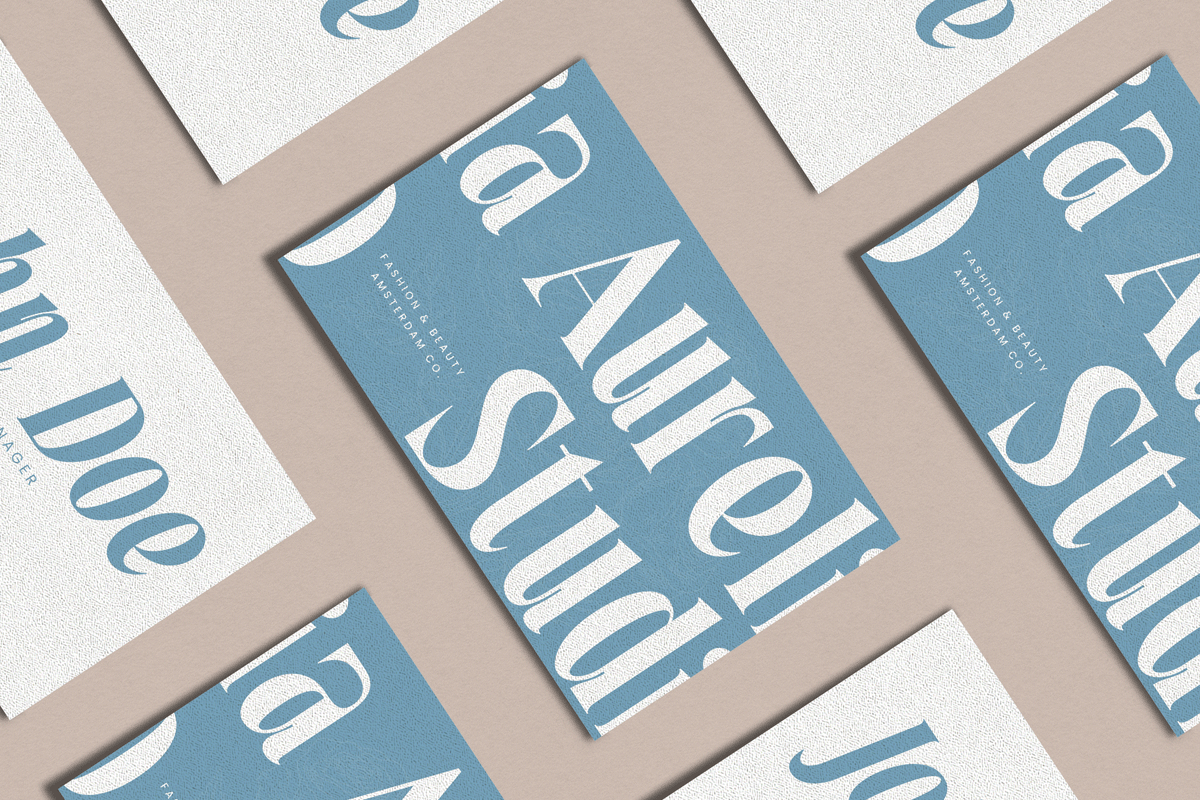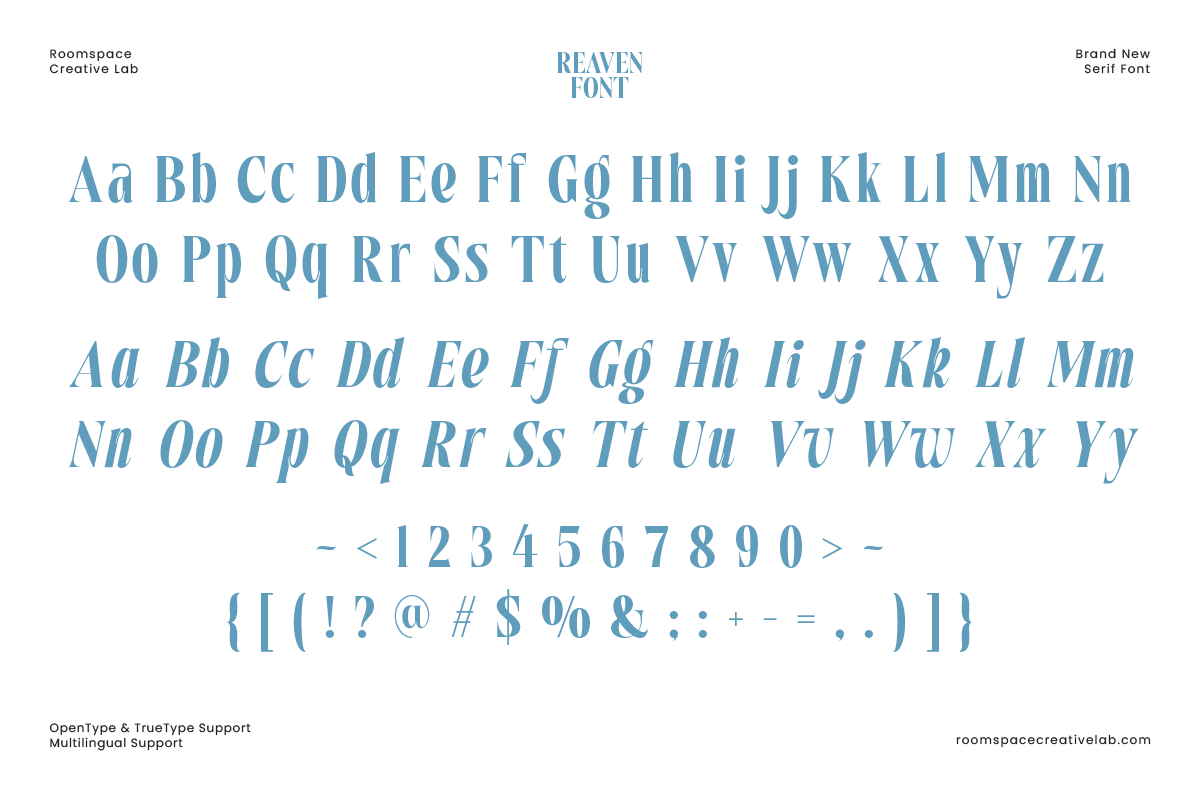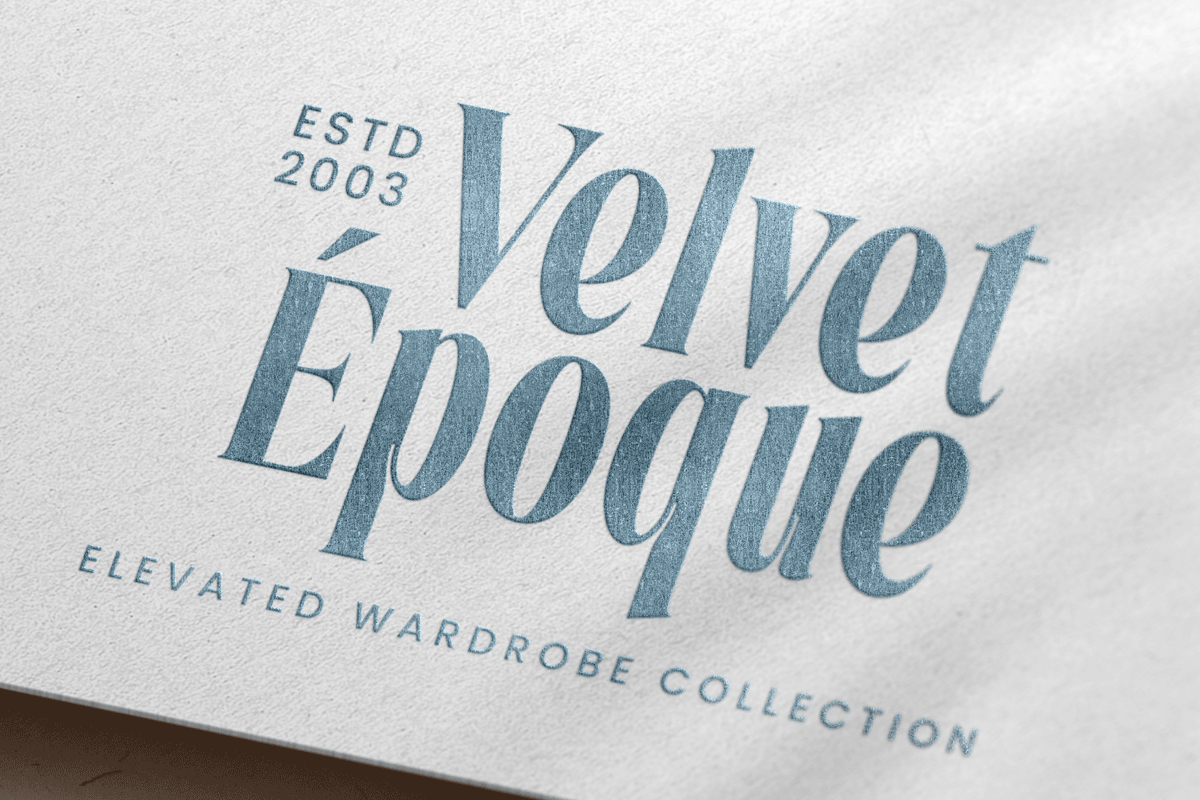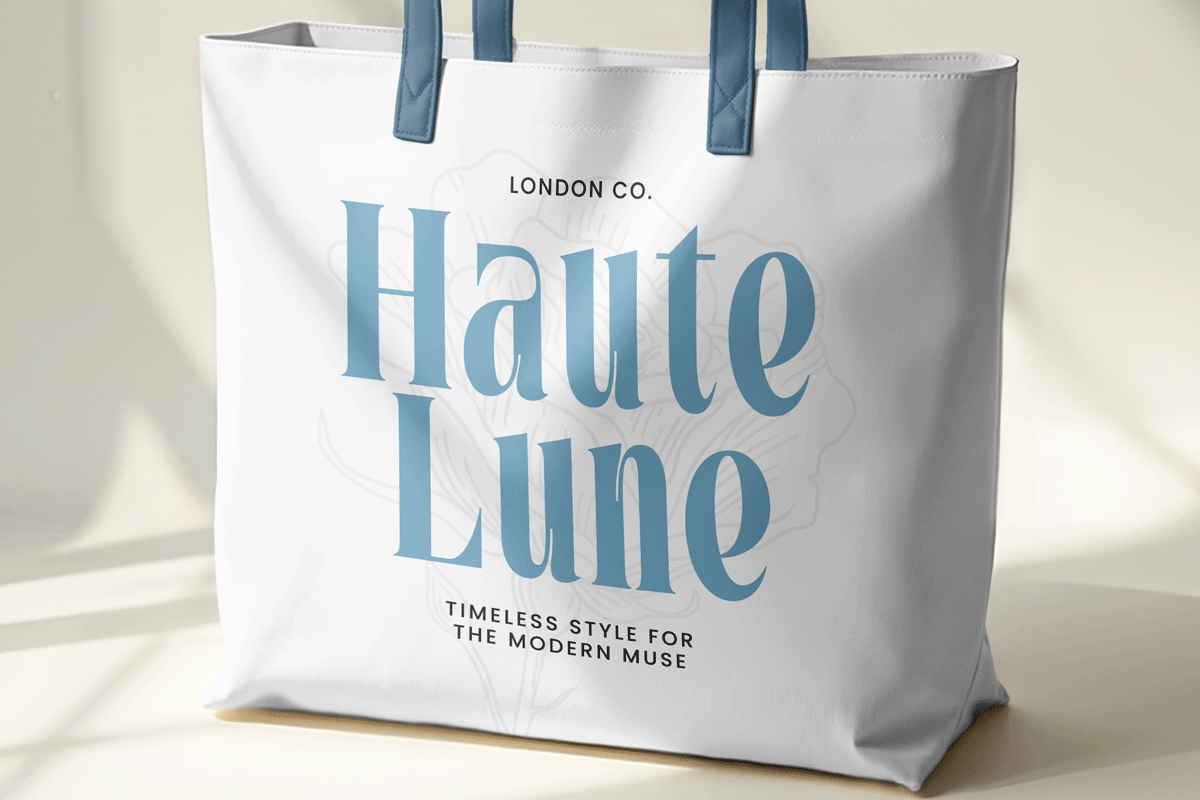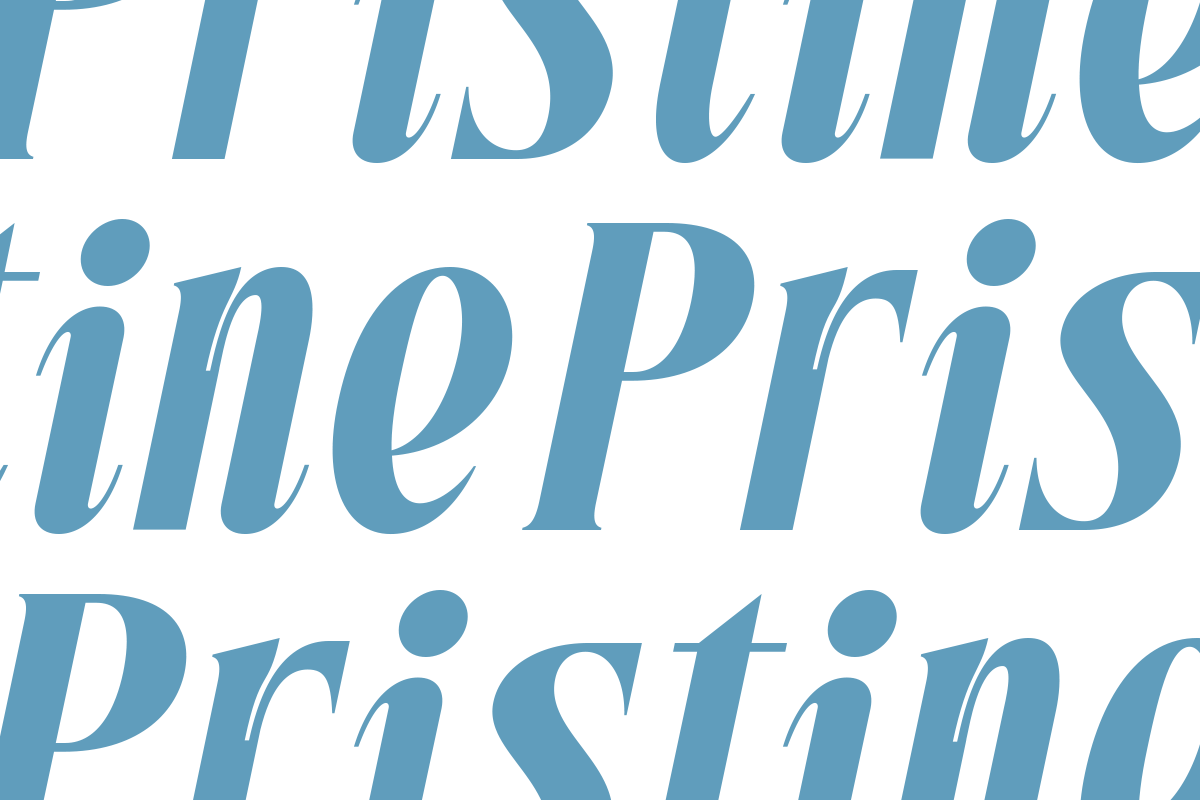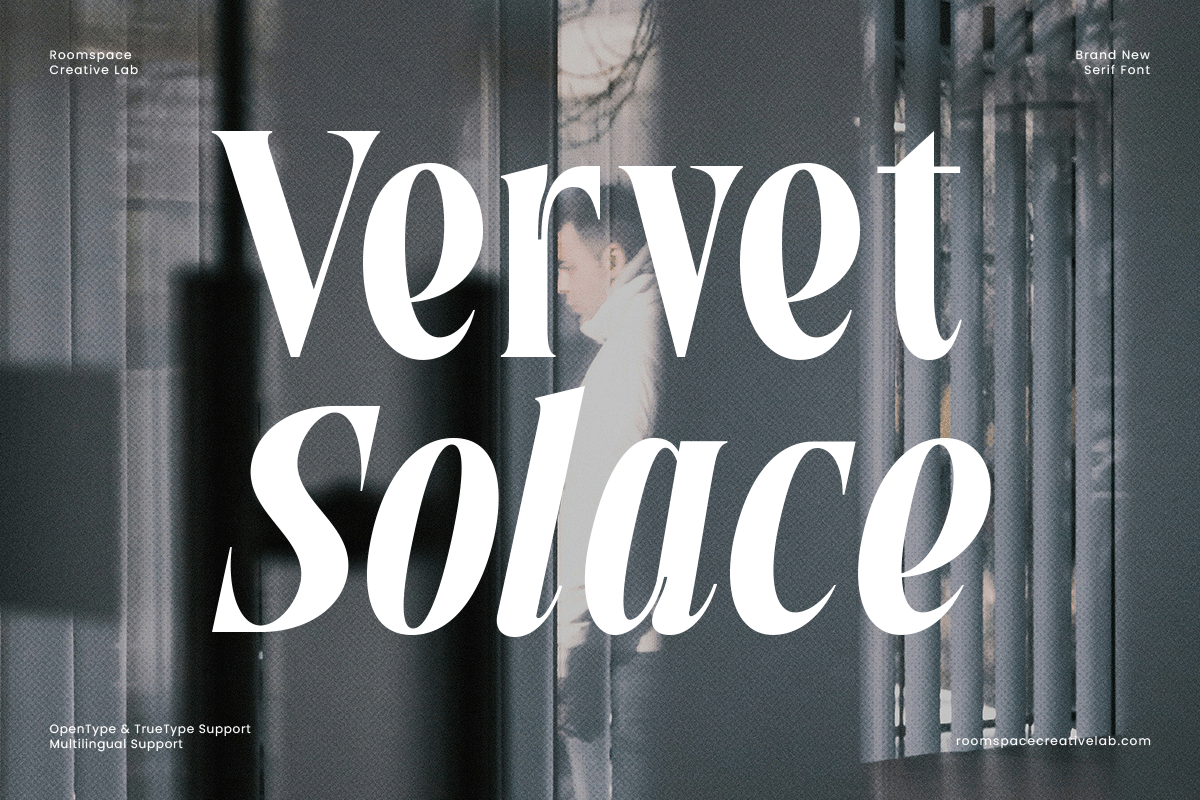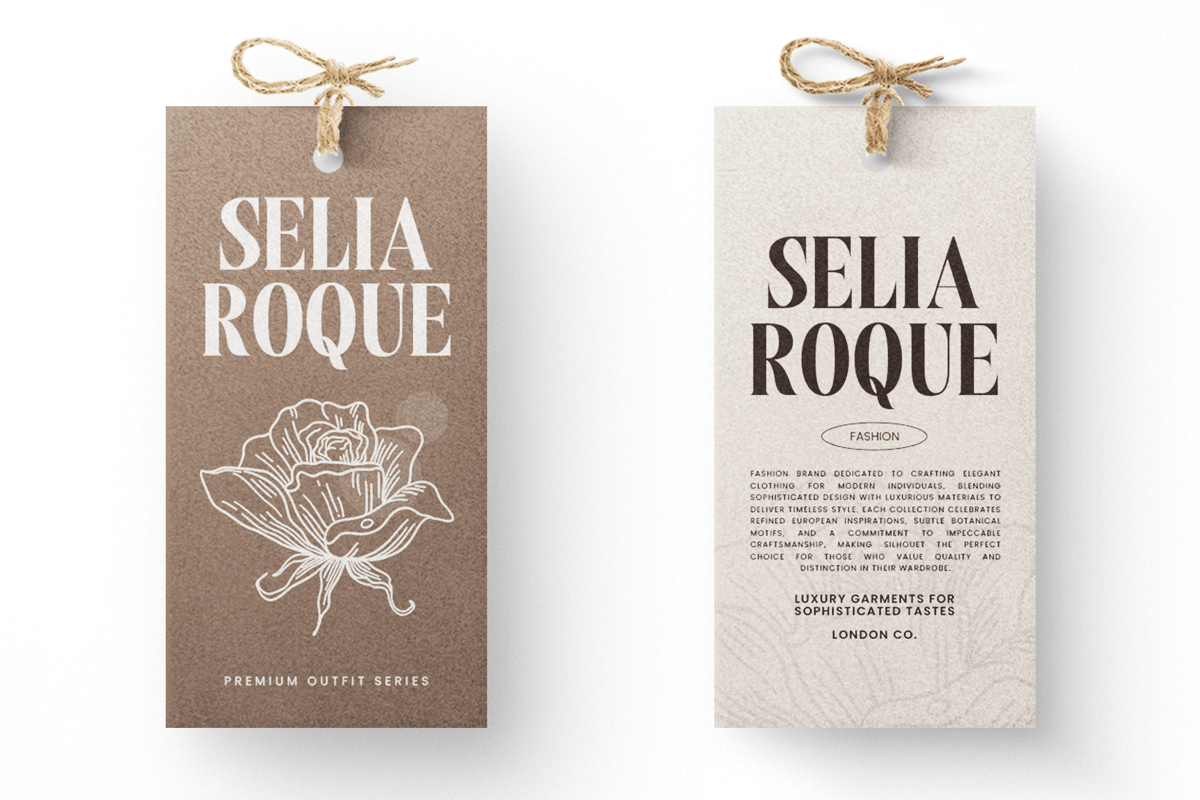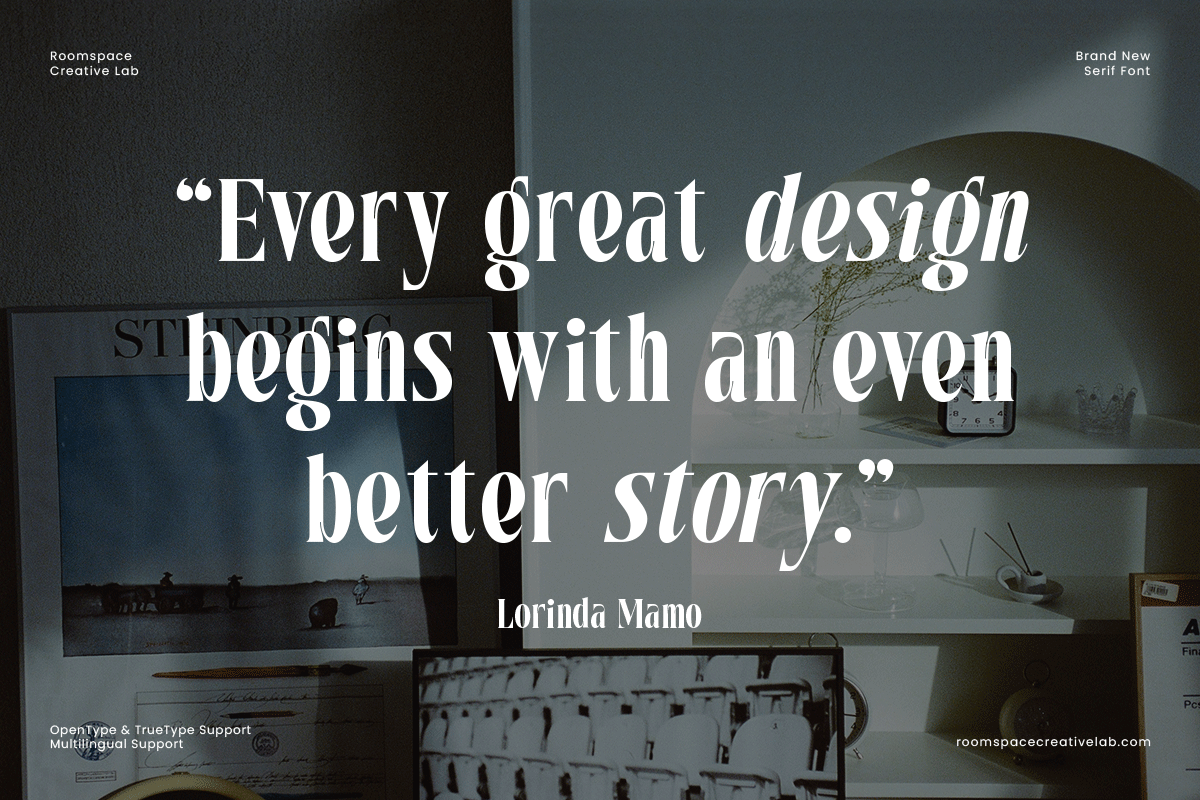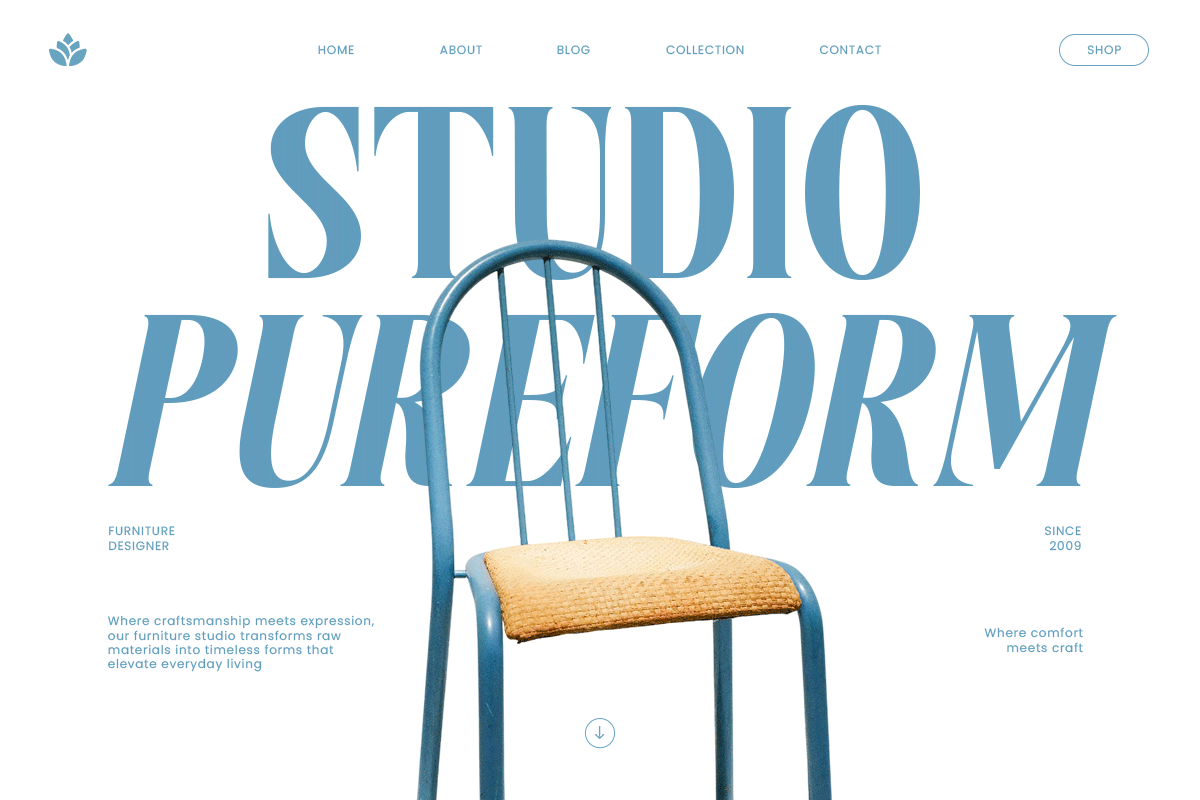
Reaven – Modern High Contrast Serif
Reaven is a modern serif font that blends sophistication with strength. Designed for creators who value both elegance and impact, Reaven features dramatic contrasts between thick and thin strokes, resulting in a look that feels bold yet refined. It’s the perfect balance between editorial charm and modern minimalism, making it ideal for luxury branding and design-forward projects.
Crafted with precision, Reaven showcases elegant curves, sharp verticals, and consistent kerning that ensures perfect alignment across every use. Its high-contrast details bring visual drama to headlines, while maintaining excellent readability in longer texts. The typeface comes in Regular and Italic styles, offering designers flexibility to mix tone and texture within a single design system.
Whether you’re working on fashion magazines, packaging, logos, or digital branding, Reaven adds timeless style and professional depth to every layout. It shines in editorial spreads, luxury labels, and contemporary brand identities. Add Reaven to your font collection today and give your next project a refined and confident voice that truly stands out.
- Regular and Italic